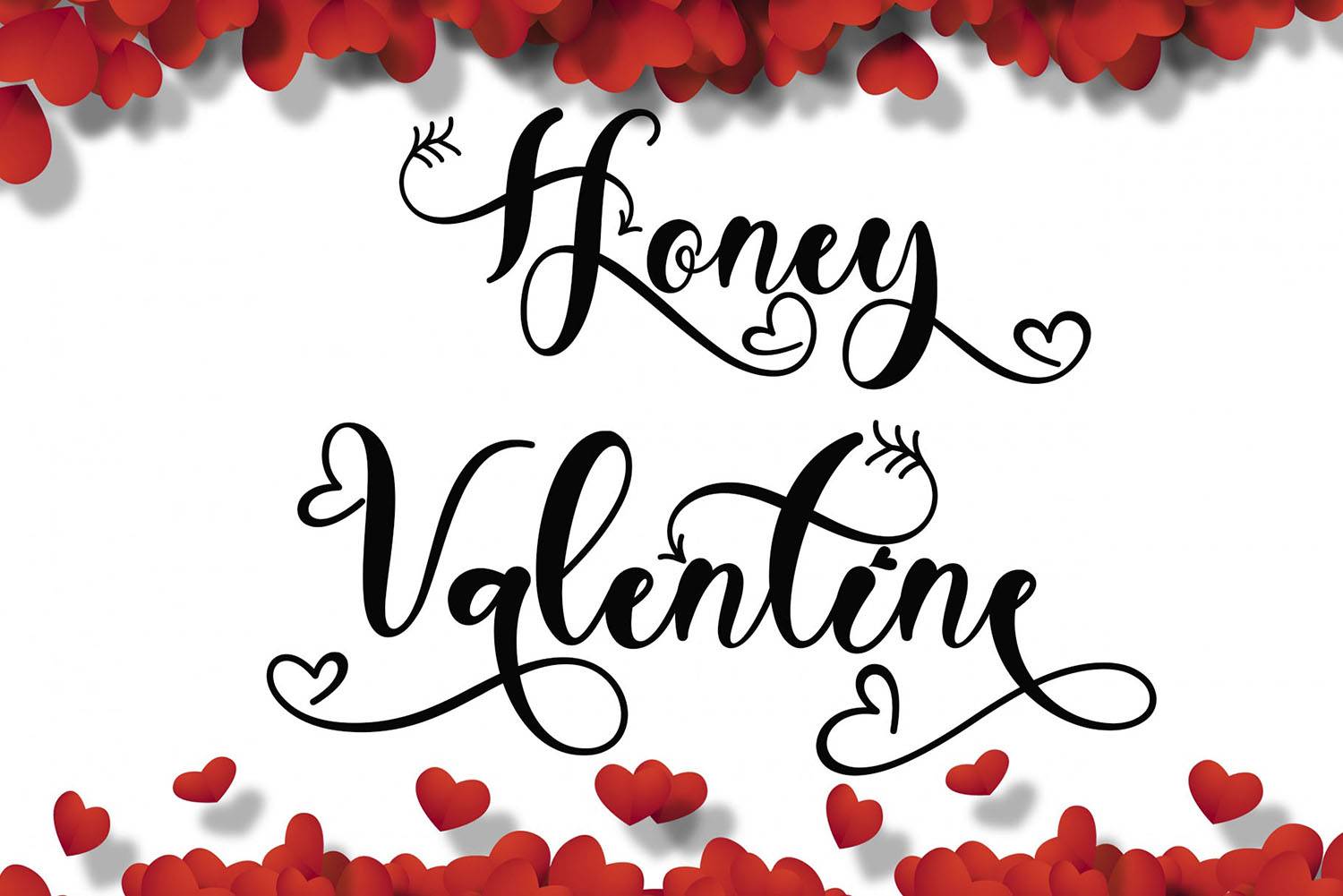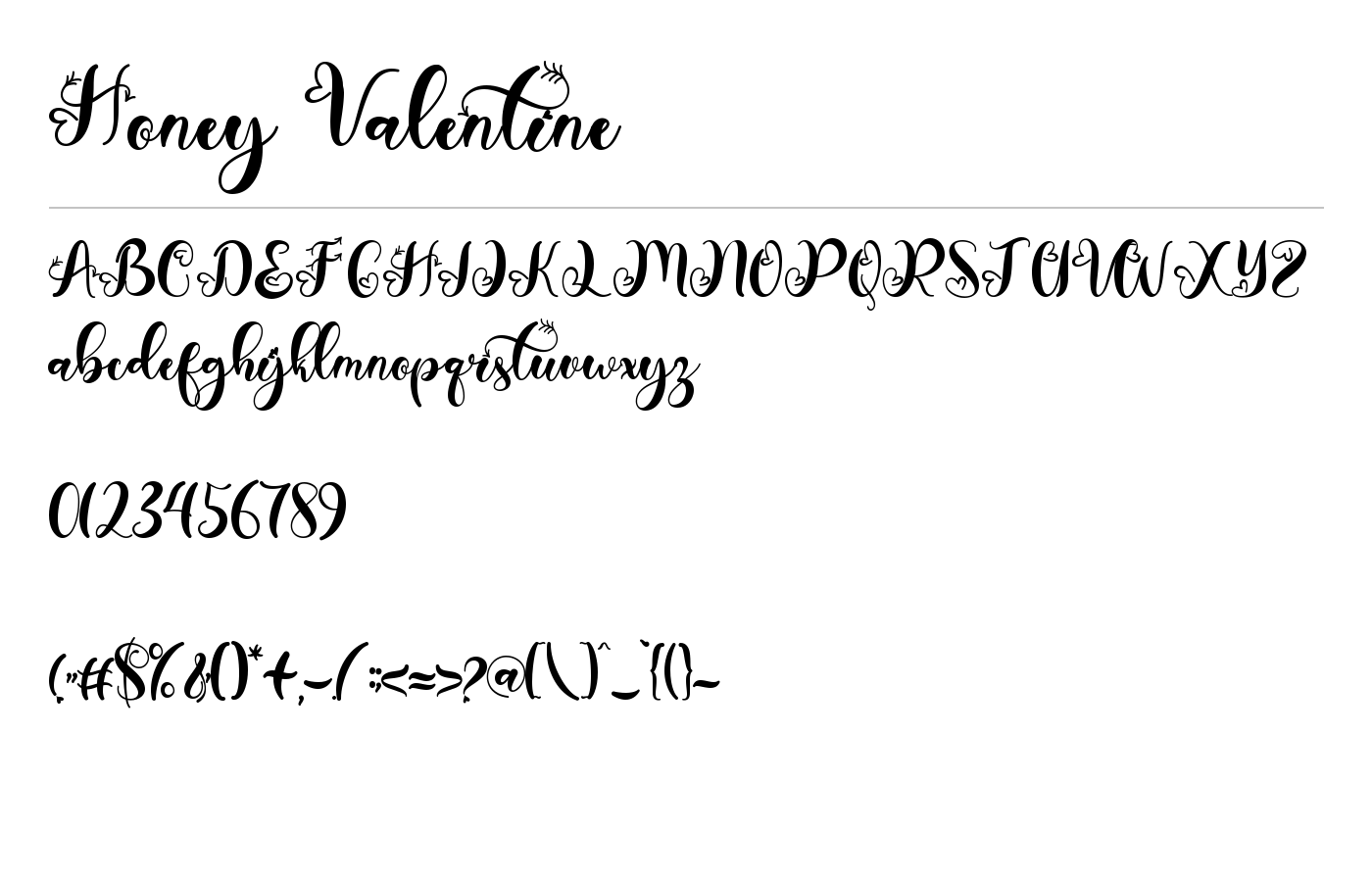
Honey Valentine is a playful and elegant script font with delicate, flowing strokes and whimsical heart and swirl embellishments that give it a romantic, handcrafted feel. Its smooth, medium-weight letterforms combine high contrast with a lively, decorative style, making it perfect for invitations, greeting cards, and branding that aims to convey warmth and charm. This font works beautifully in designs where a personal, affectionate touch is desired, especially for Valentine’s Day themes, weddings, and feminine packaging.
Honey Valentine Font